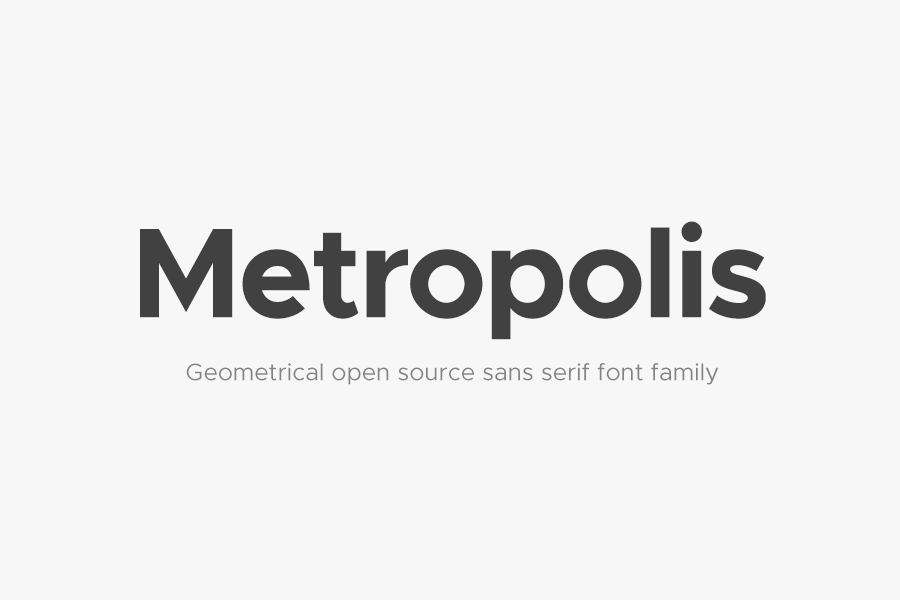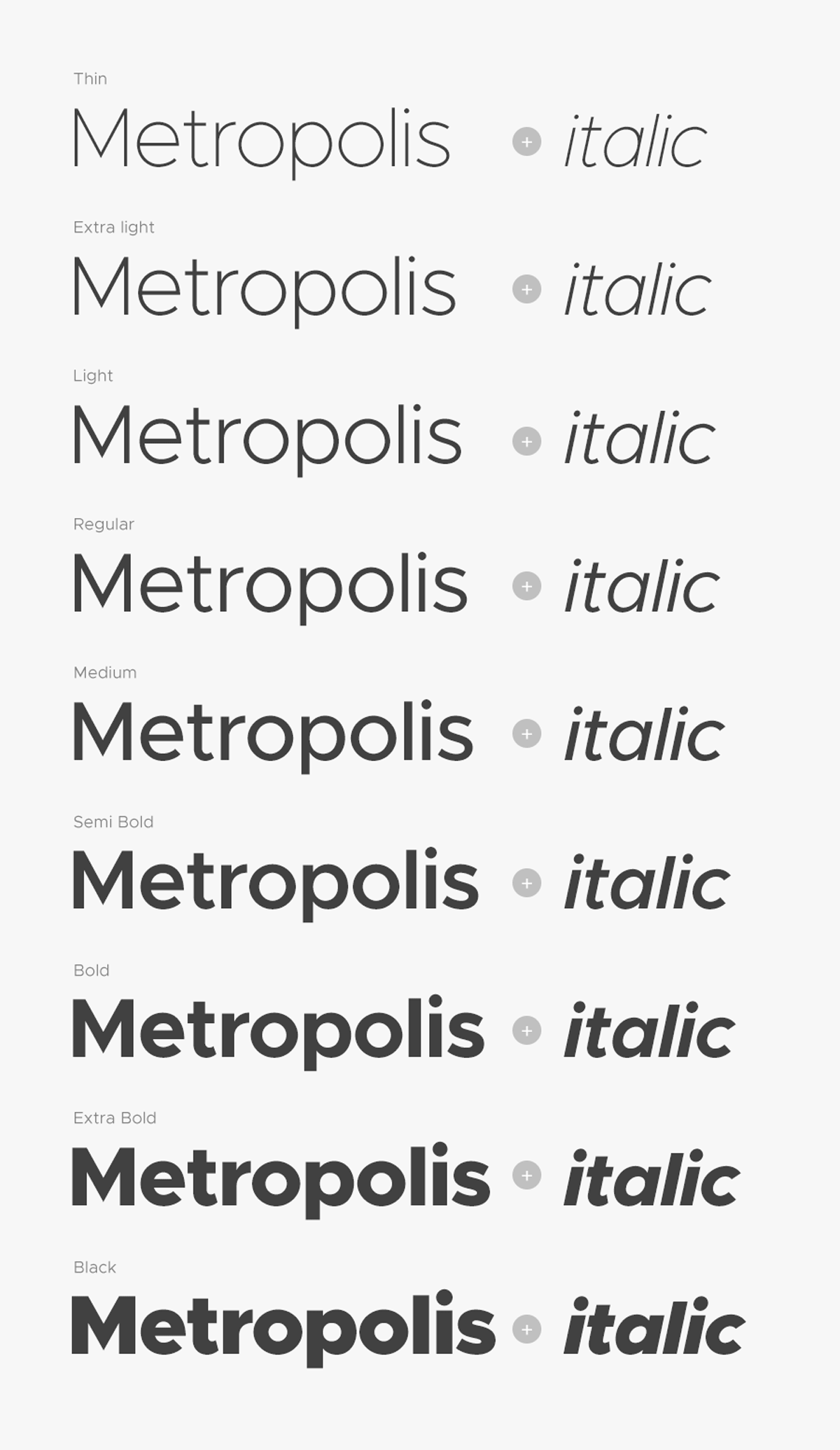
Metropolis is a free, modern and geometrical sans serif font family which can be used as Proxima Nova alternative. The design of the Metropolis was influenced by other popular geometric, minimalist sans serif typefaces, which I think should be the aforementioned Proxima Nova and Montserrat etc.
Metropolis comes with 9 font weights and each comes with italic version too, which makes it a huge family of 18 styles. It’s minimalistic design contributed to the readability on small font sizes, while still looking brilliant on big displays. You can download and use it for personal and commercial projects, as it’s licensed under SIL Open Font License.